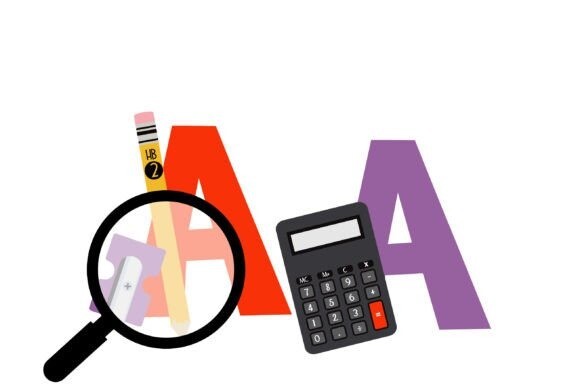
School Tools Font
School Tools Font – This full-color font bold sans serif lettering with school supplies throughout. There is an alt version you can access through your system’s character map that contains additional colors of all the letters.